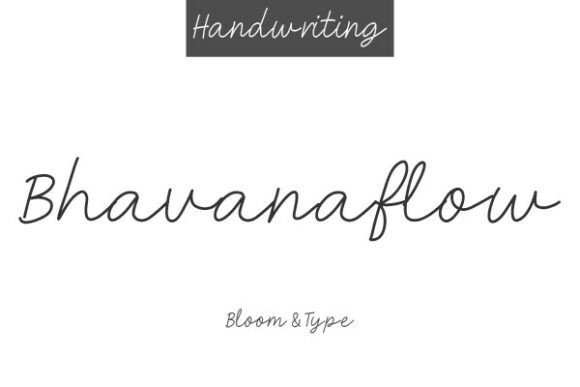
The Bhavanaflow Font: A Handcrafted Gem for Creative Projects
Have you ever been in the middle of a design project, pouring your heart and soul into every detail, only to get stuck on one thing: the font? I certainly have. It was a typical Wednesday afternoon when I received a client request for a logo design that exuded calmness, mindfulness, and a touch of elegance. The challenge was to find a font that could convey all these emotions without compromising on professionalism. That’s when I stumbled upon the Bhavanaflow font, and it was love at first sight! 💕
A Personal Review: What I Love About Bhavanaflow
Here’s what makes Bhavanaflow a standout font:
- ✨ Smooth curves and clean strokes: Each character is meticulously crafted to provide a seamless reading experience.
- ✅ Graceful flow: The font’s unique flow makes every word look personal yet professional, perfect for a wide range of creative projects.
- 🌿 Natural elegance: Bhavanaflow brings a sense of calmness and serenity to your designs, making it ideal for projects that require a touch of warmth and sophistication.
While Bhavanaflow is a beautifully crafted font, there are a few minor quirks to be aware of:
- ⚠️ Limited use of all-caps: While the font does offer uppercase letters, it’s best used sparingly to maintain its elegant feel.
- 🤔 Requires attention to spacing: To get the most out of Bhavanaflow, you may need to adjust the letter spacing to ensure optimal readability.
- Take advantage of OpenType features, such as glyphs and stylistic alternates, to add more creativity to your text.
The Designer Inspiration Behind Bhavanaflow
The story behind Bhavanaflow is one of passion and dedication. The font was crafted with love and care to bring a sense of calmness and mindfulness to creative projects. While the actual designer behind Bhavanaflow remains a mystery, it’s clear that their goal was to create a font that would inspire designers to create beautiful and meaningful work.
- Q: What type of projects is Bhavanaflow best suited for?
- A: Bhavanaflow is perfect for projects that require a touch of elegance, calmness, and mindfulness, such as logos, branding, invitations, and social media content.
- Q: Does Bhavanaflow support OpenType features?
- A: Yes, Bhavanaflow offers a range of OpenType features, including glyphs and stylistic alternates, to enhance your designs.